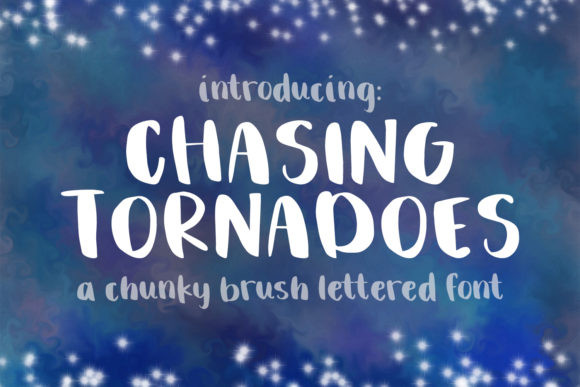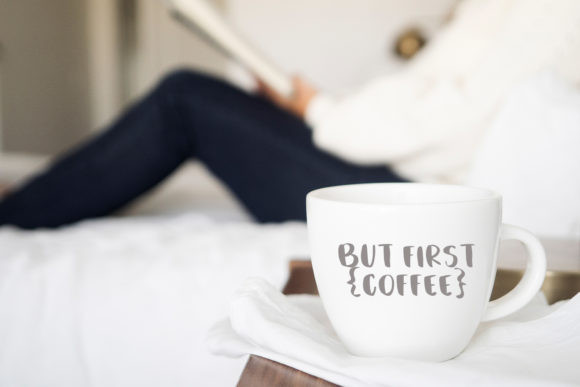
Chasing Tornadoes Font
Chasing Tornadoes embodies fun, quirkiness and authenticity. This enchanting handwritten font will turn any creative idea into a true standout.